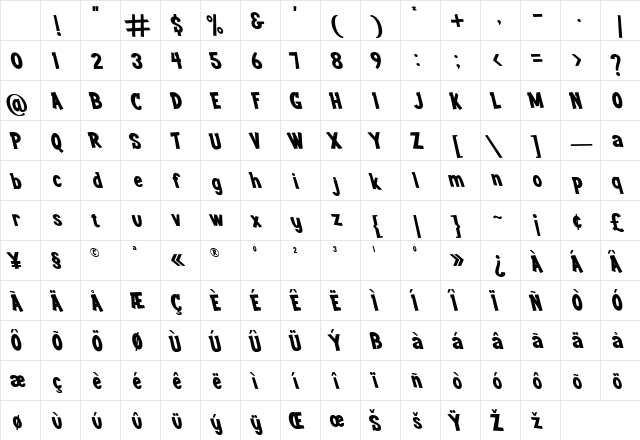
Complete Youth wright Oblique glyph index. Displaying only characters natively supported by Youth wright Oblique font.
Youth wright is a composed and adaptable typeface that performs quietly and consistently across a wide range of design contexts. The slanted form adds forward momentum and visual energy.